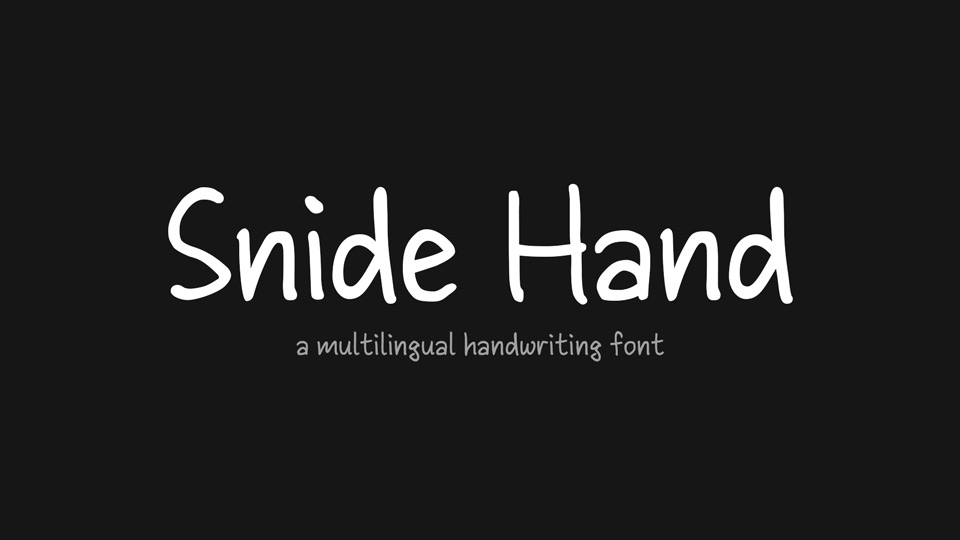
Download Snide Hand font, a hand lettered typeface based on a personal handwriting. The reference photos were taken from semi-rushed writing on 7mm-ruled paper with a 0.4mm felt-tipped pen.
Designer: JapanYoshi